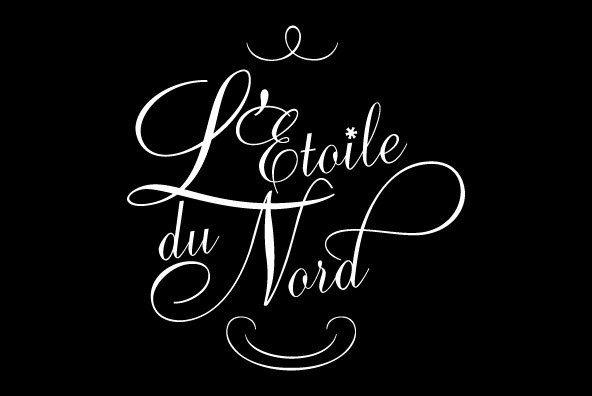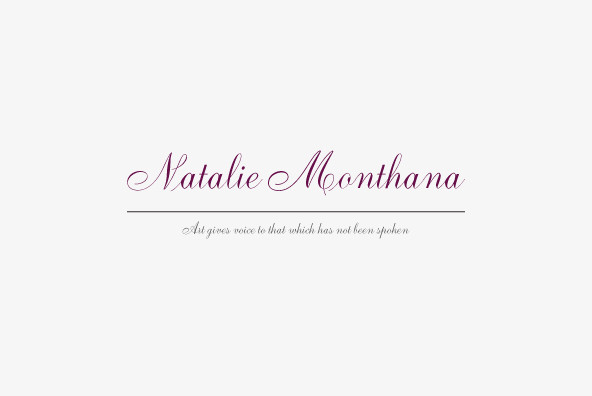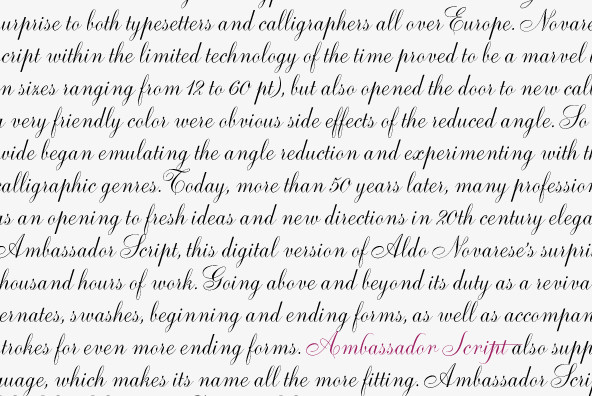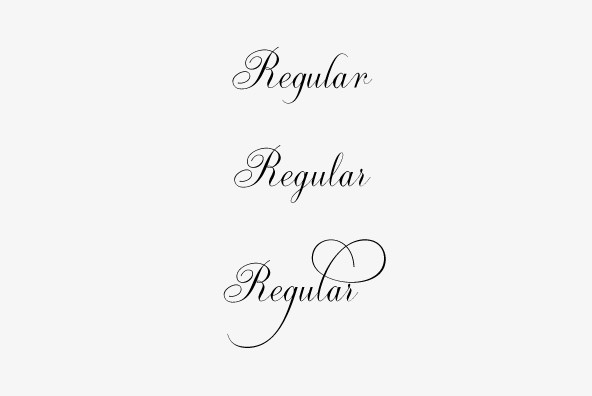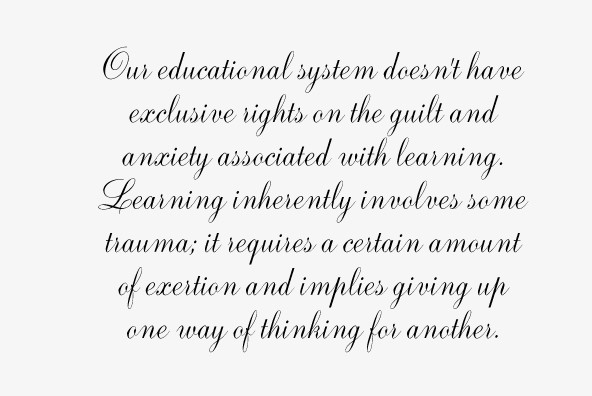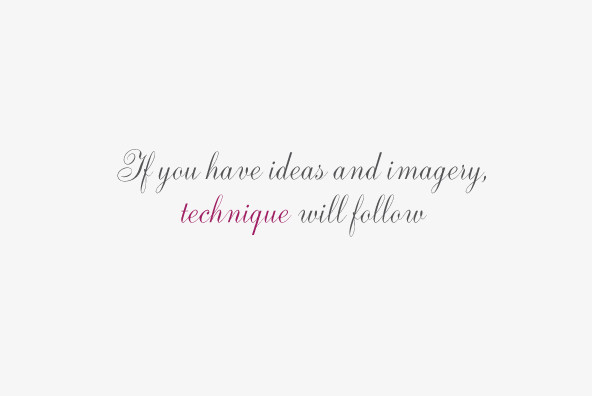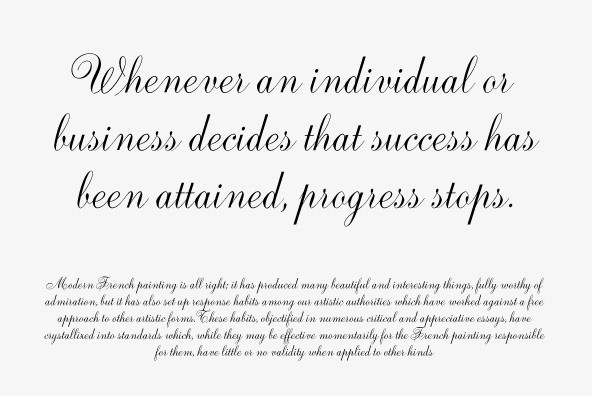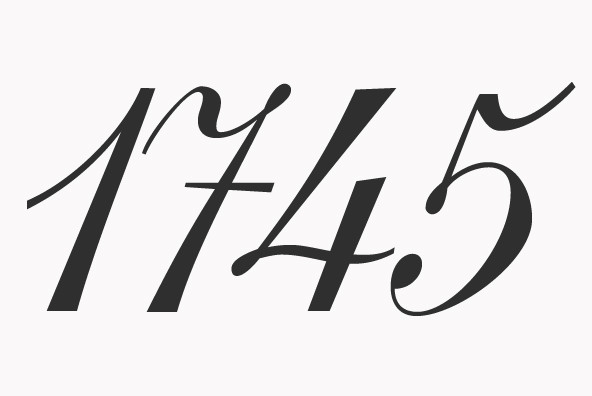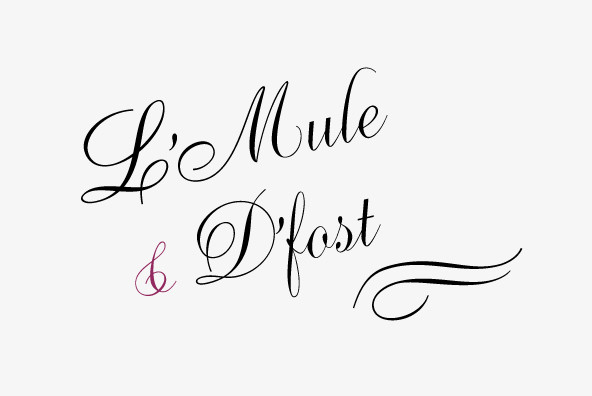
When Aldo Novarese designed his 'tipo inglese' Juliet typeface, he had a simple objective in mind: Reduce the inclination angle of the traditional 18th and 19th centuries English script in order to make the punchcutter's job easier and the resulting metal type more durable.
But when Juliet was released by Nebiolo in 1955, it was a big surprise to both typesetters and calligraphers all over Europe. Novarese's idea of working the standard copperplate script within the limited technology of the time proved to be a marvel in optical metal sizing (Juliet was available in sizes ranging from 12 to 60 pt), but also opened the door to new calligraphic possibilities. Easier readability and a very friendly color were obvious side effects of the reduced angle. So soon after its release, calligraphers worldwide began emulating the angle reduction and experimenting with the application of the same concept to other calligraphic genres. Today, more than 50 years later, many professional calligraphers point to Novarese's Juliet as an opening to fresh ideas and new directions in 20th century elegant calligraphy.
Ambassador Script, this digital version of Aldo Novarese's surprising masterpiece, is the result of more than a thousand hours of work. Going above and beyond its duty as a revival, it was expanded by a great number of alternates, swashes, beginning and ending forms, as well as accompanying flourishes and snap-on strokes for even more ending forms. Ambassador Script also supports almost every known Latin-based language, which makes its name all the more fitting.
Ambassador Script is ideal for weddings, invitations, greeting cards, book and magazine covers, or anywhere a touch of calligraphic elegance is desired.